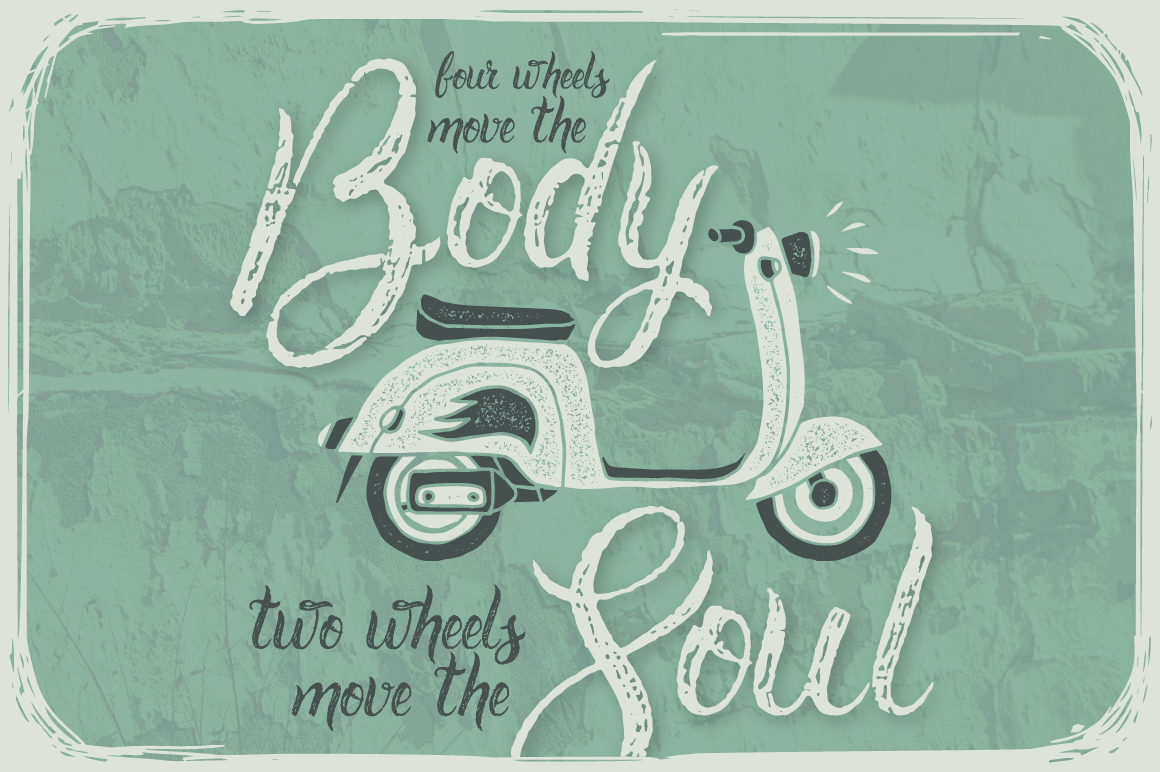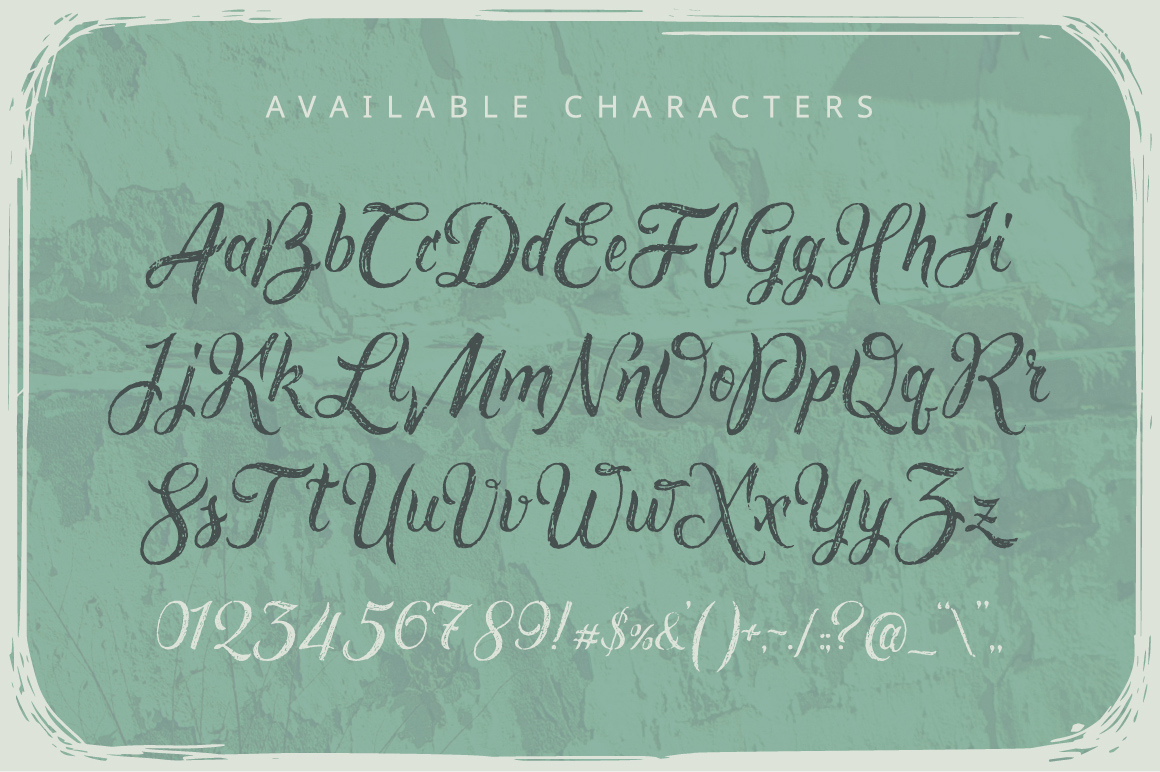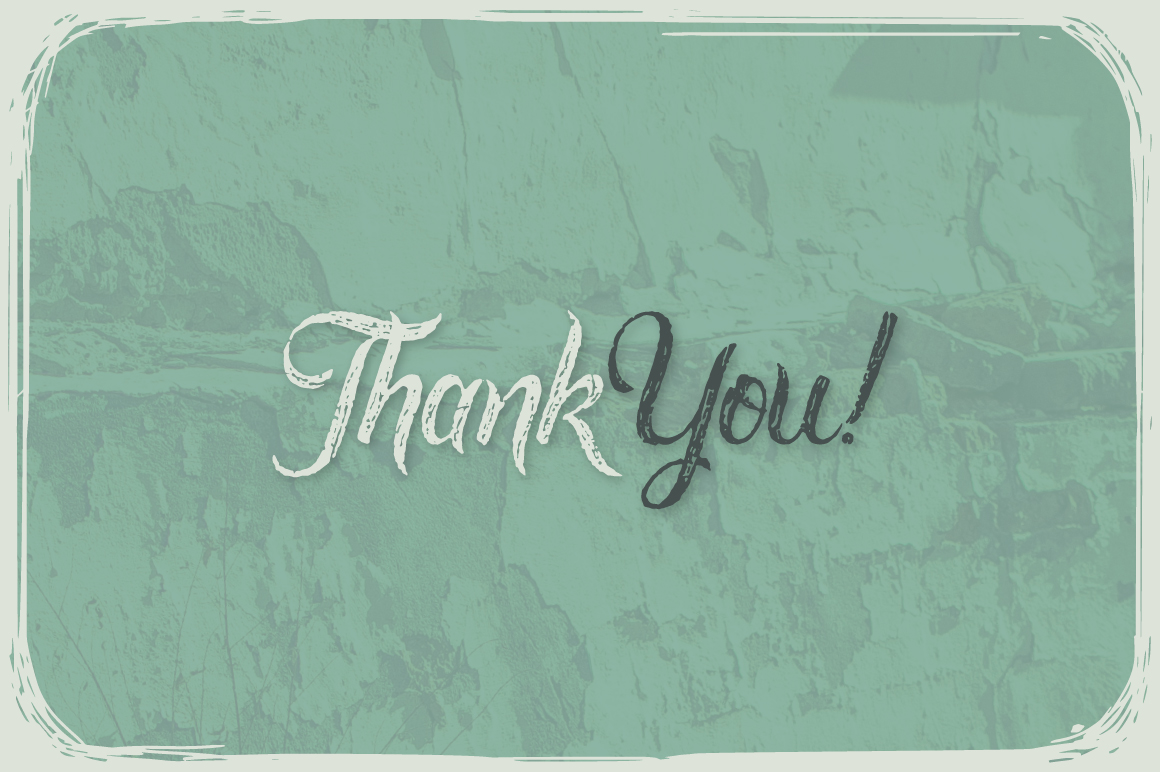
Introduction to Rusted Brushpen Font
Have you ever been in the middle of a creative project, staring at a blank page, and suddenly, a spark of inspiration strikes? That’s exactly what happened to me when I stumbled upon the Rusted Brushpen Font. This fancy brush pen font has a rough, grungy effect that instantly adds character to any design. I was hooked from the very first glance, and I knew I had to dive deeper.
Key Features of Rusted Brushpen Font
- Unique Hand-Drawn Design: The Rusted Brushpen Font features a distinctive, hand-drawn aesthetic that adds a touch of creativity to any design project.
- Perfect for Creative Projects: The Rusted Brushpen Font is ideal for designers working on creative projects that require a unique, artistic touch, such as branding, advertising, and editorial design.
- Complete Character Set: Includes a full set of characters, including uppercase and lowercase letters, numbers, and punctuation marks, for comprehensive use in design projects.
Honest Review: Rusted Brushpen Font
As a designer, I’m always on the lookout for high-quality design resources that can elevate my creative projects. The Rusted Brushpen Font is one such resource that caught my attention.
Here are some things that work well: ✨
- Unique, hand-drawn style that adds a personal touch to designs
- High-quality glyphs and letterforms that are perfect for creative projects
However, there are a few limitations: ⚠️
- Font may not be suitable for formal or corporate designs due to its hand-drawn style
- Limited language support, which may be a concern for designers who work with multiple languages
Overall, I’m impressed with the Rusted Brushpen Font. It’s a great design resource for creative projects that require a unique and personal touch. While it may have some limitations, it’s a high-quality font that’s definitely worth considering for your next design project.
Tips for Getting the Most Out of Rusted Brushpen Font
To get the most out of the Rusted Brushpen Font, experiment with different font sizes, colors, and styles. Use it in conjunction with other design elements, such as images and graphics, to create visually appealing designs. This font is ideal for creative projects, including artwork, invitations, and more.
The Rusted Brushpen Font is commonly used in a variety of creative projects, including:
- Artwork and illustrations
- Invitations and event materials
- Personalized gifts and stationery